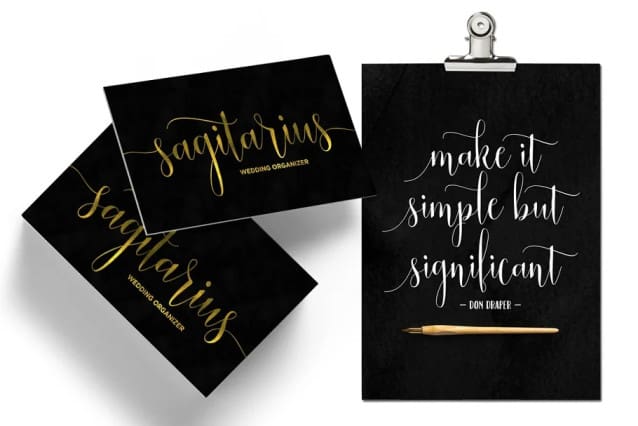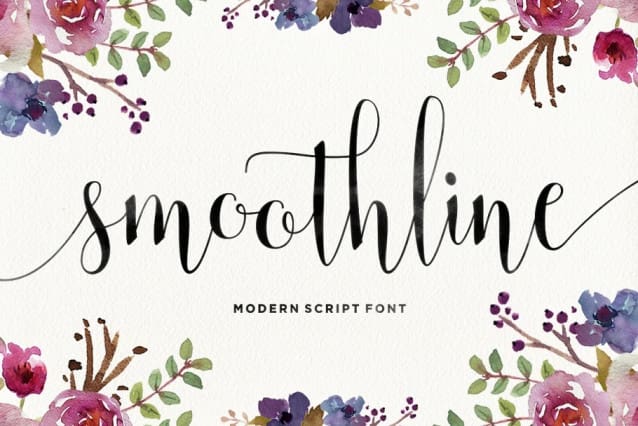
Smoothline Calligraphy Font
Smoothline Calligraphy Font is a modern calligraphy font, with characters dance along the baseline and elegant touch. With almost 421 glyphs. Opentype features with stylistic alternates, ligatures and multiple language support. Can be used for various purposes.such as logos, wedding invitation, heading, t-shirt, letterhead, signage, lable, news, posters, badges etc.